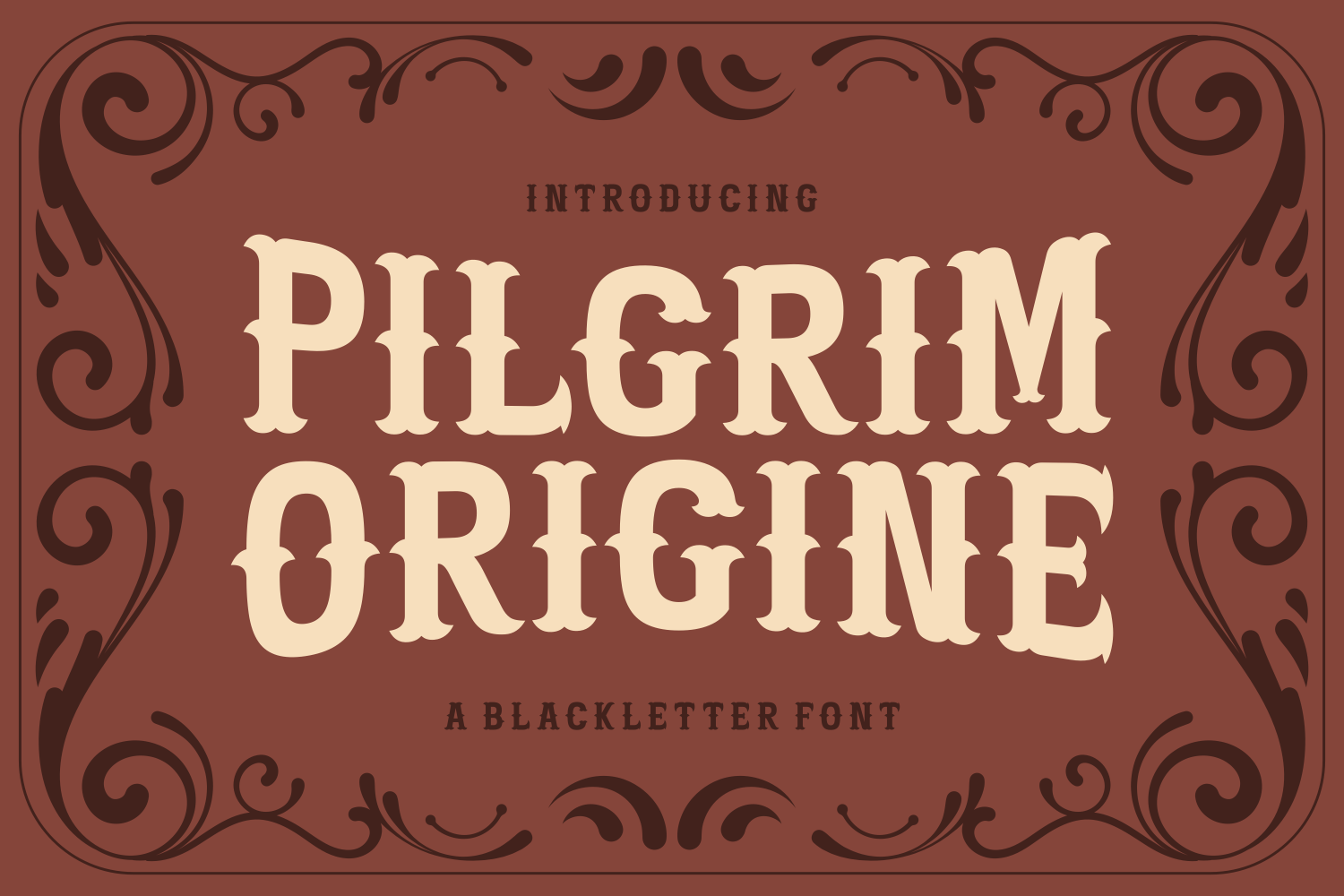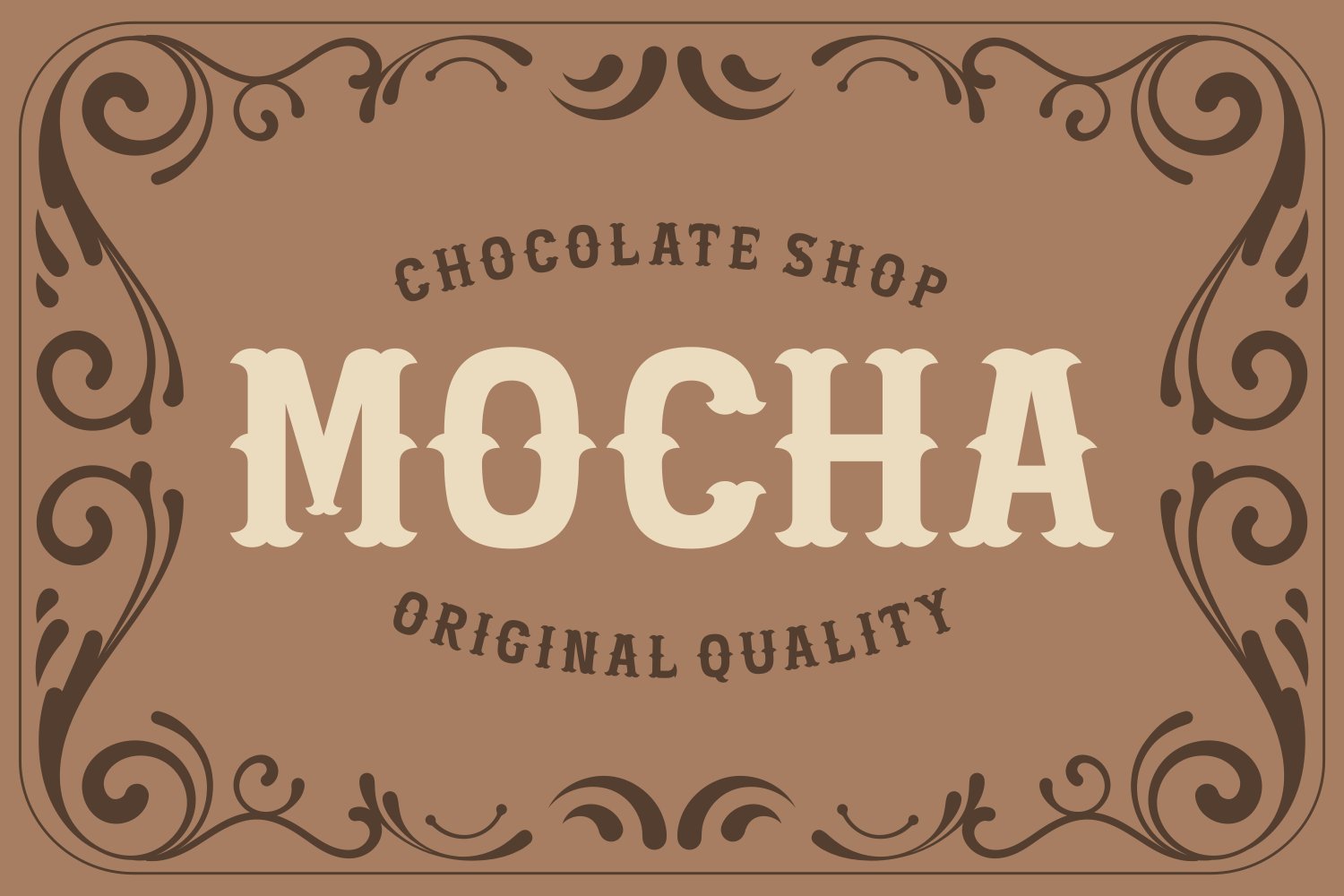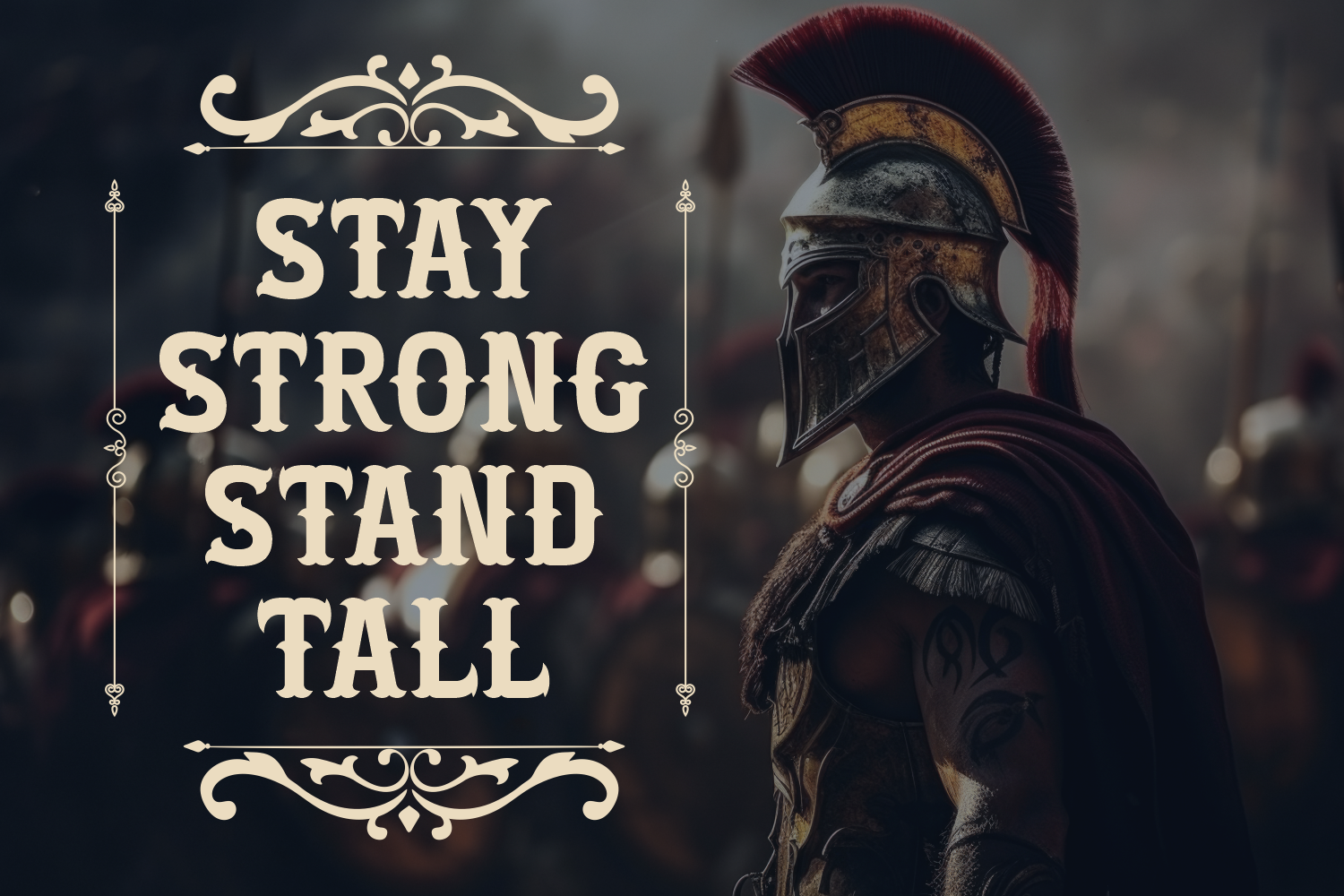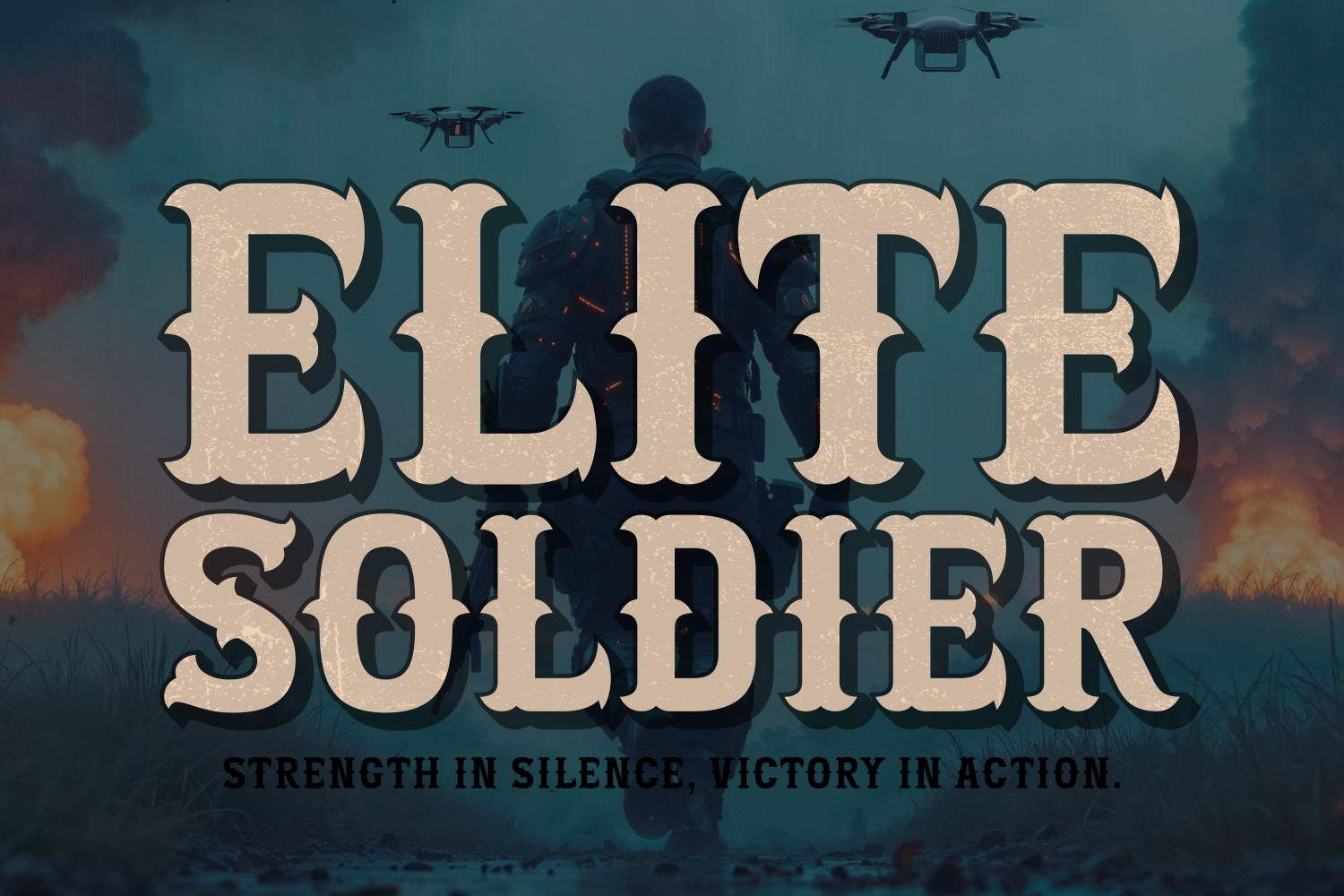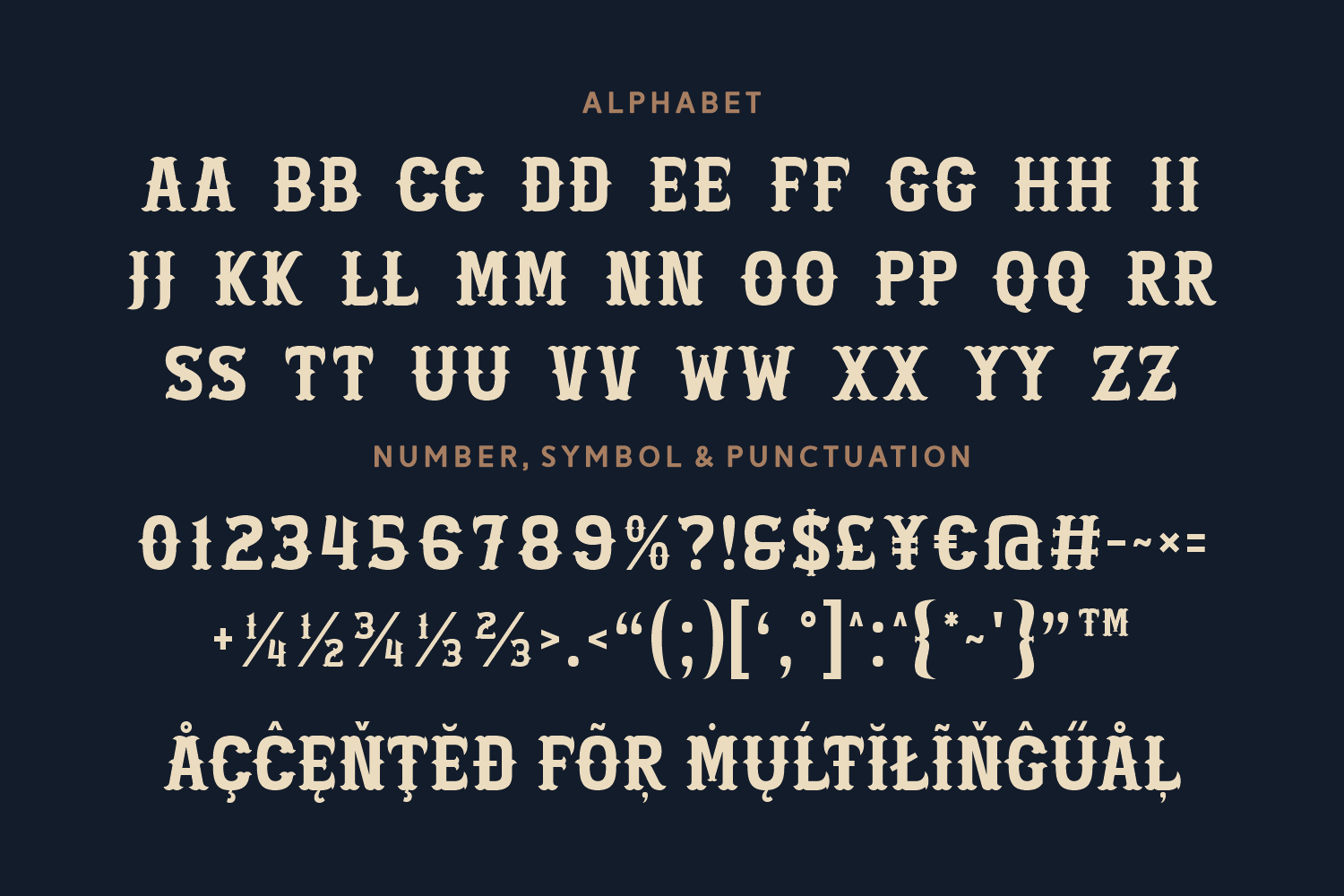
Pilgrim Origine is a vintage-inspired blackletter font that blends heritage style with rustic charm. Perfect for western branding, Americana designs, and classic print work, it brings a sense of history and craftsmanship to your projects.